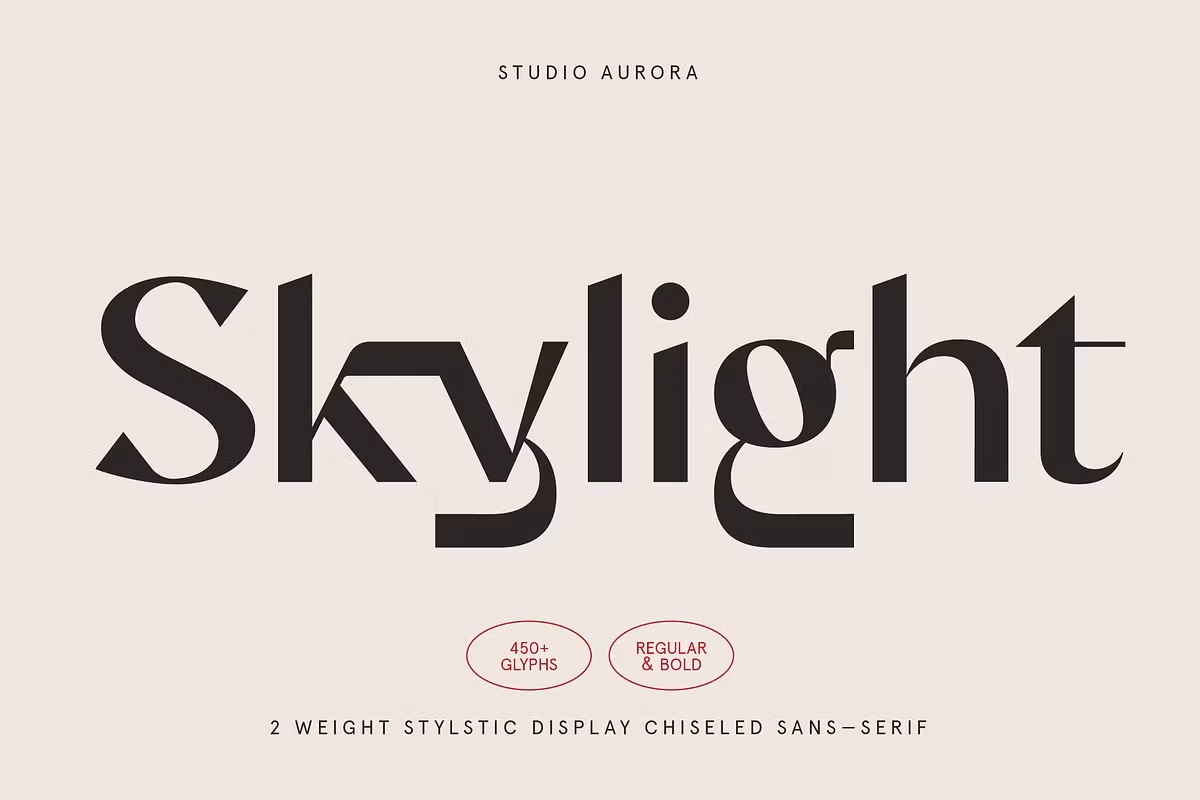
Please note, you must purchase this font for commercial use. However, you can easily download Skylight – Display Sans-Serif Font Free Download for personal use and testing purposes. Skylight – Display Sans-Serif Font is a sleek and modern typeface designed with clean lines and geometric precision. Perfect for bold headlines, branding, logos, posters, and digital content, this font brings a contemporary feel to your designs. With its strong, clear letterforms and minimalist aesthetic, Skylight – Display Sans-Serif Font Free Download adds a professional and stylish touch to any project. Whether you’re designing for a tech brand, modern business, or creative campaign, this font ensures your message is conveyed with clarity and impact. Download Skylight – Display Sans-Serif Font Free Download today and explore its potential before opting for a commercial license.